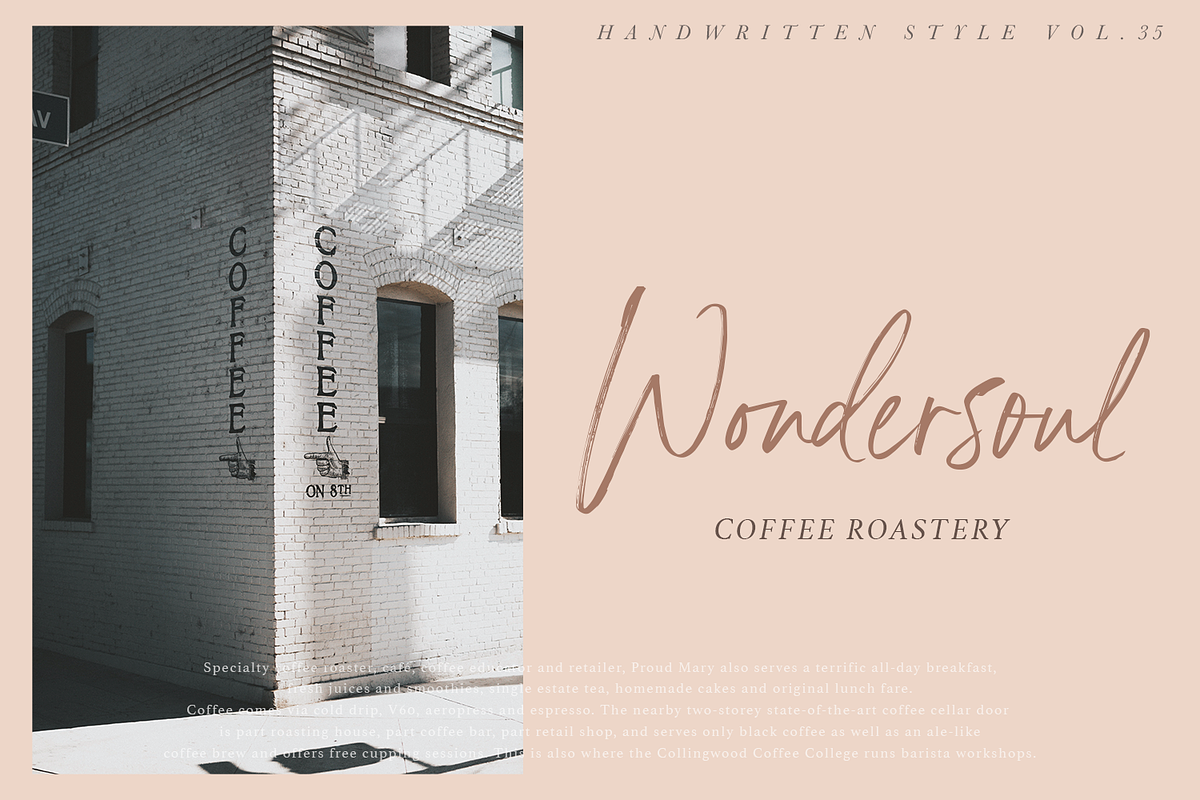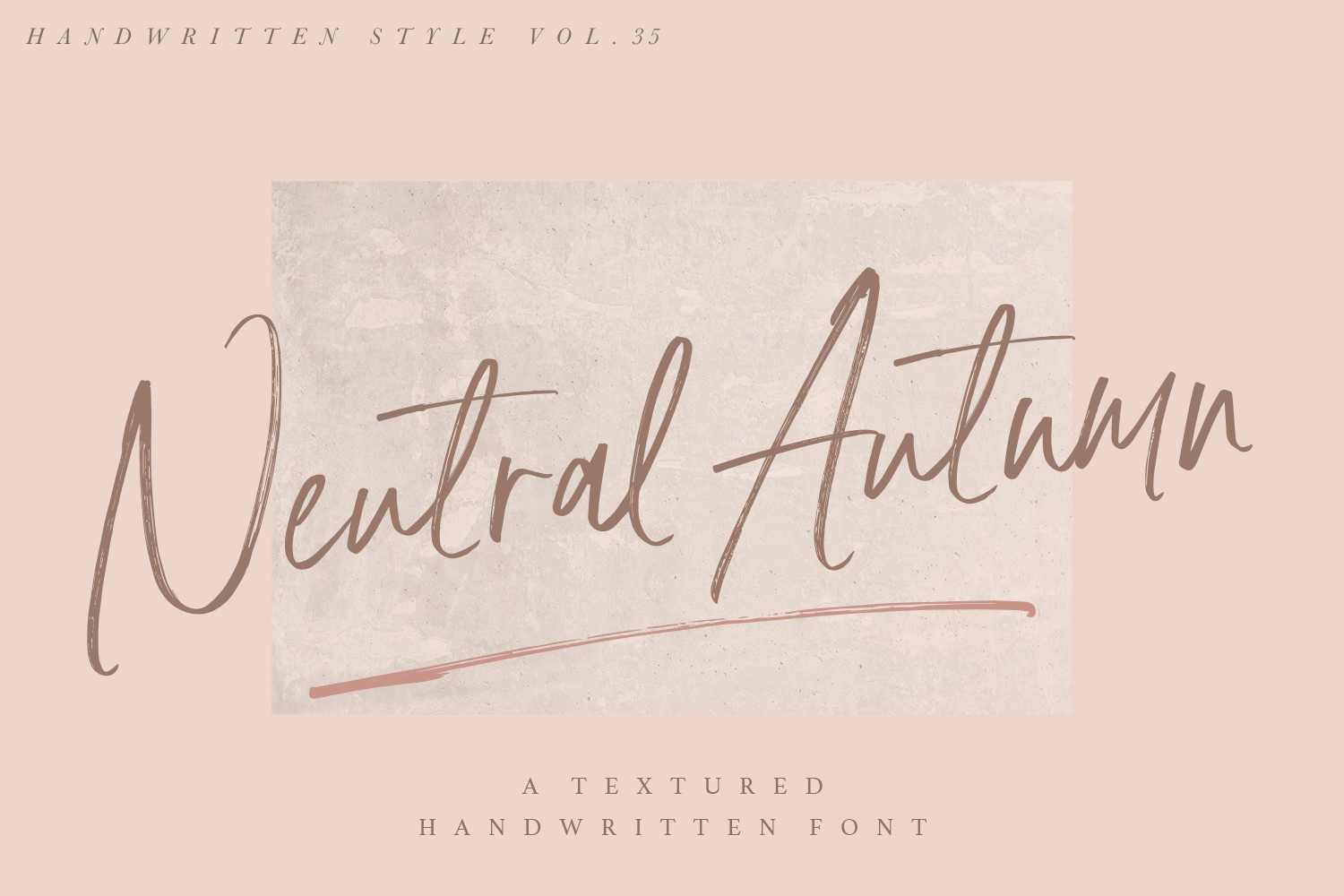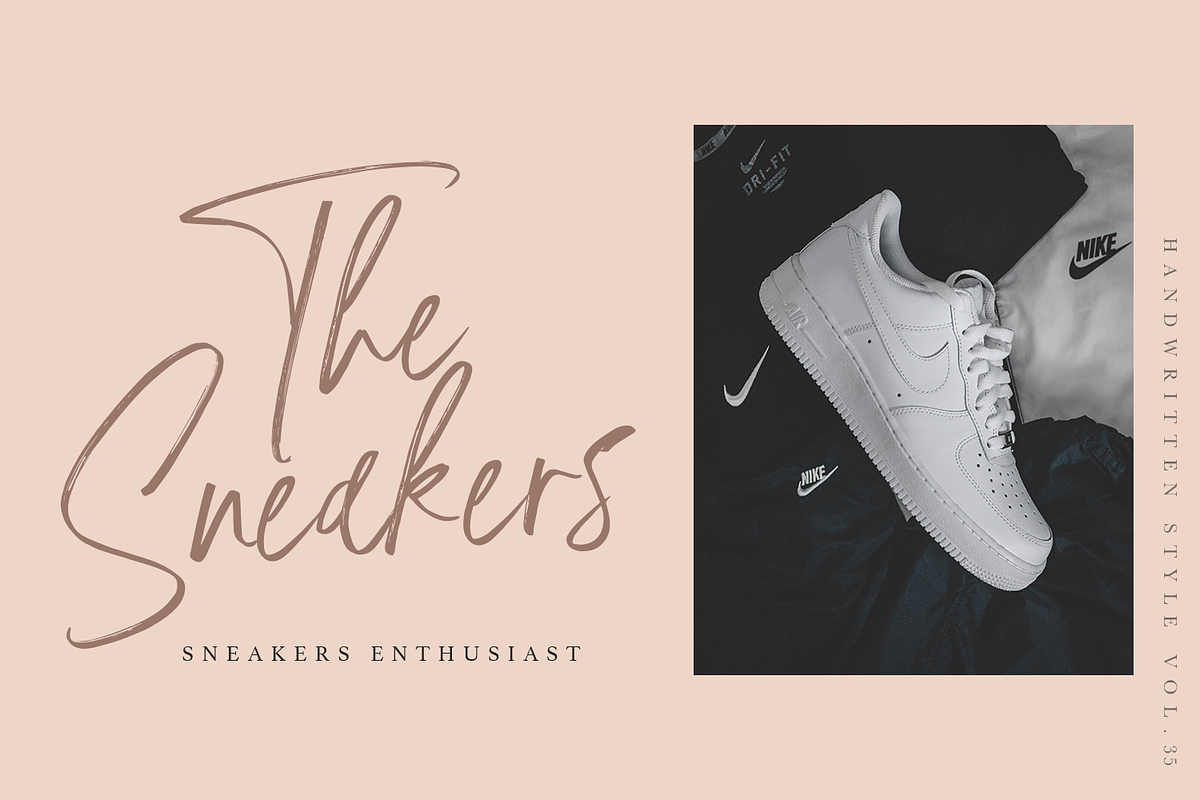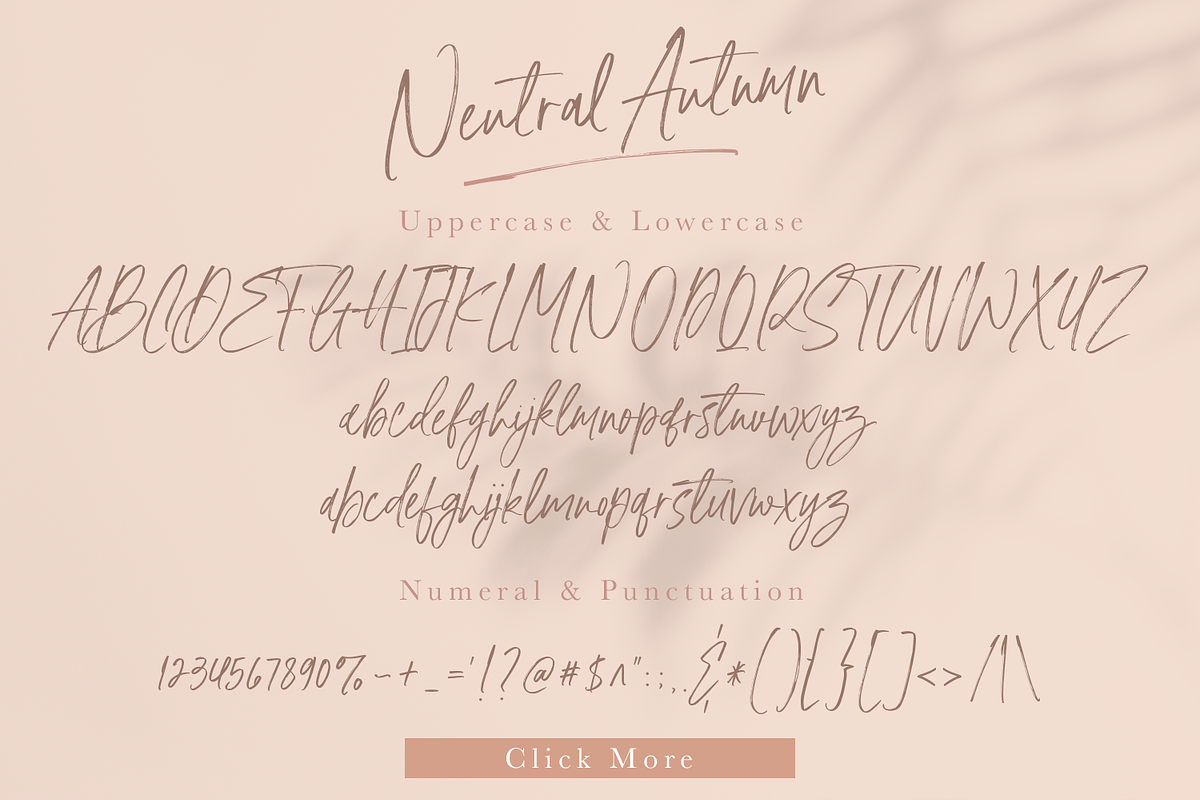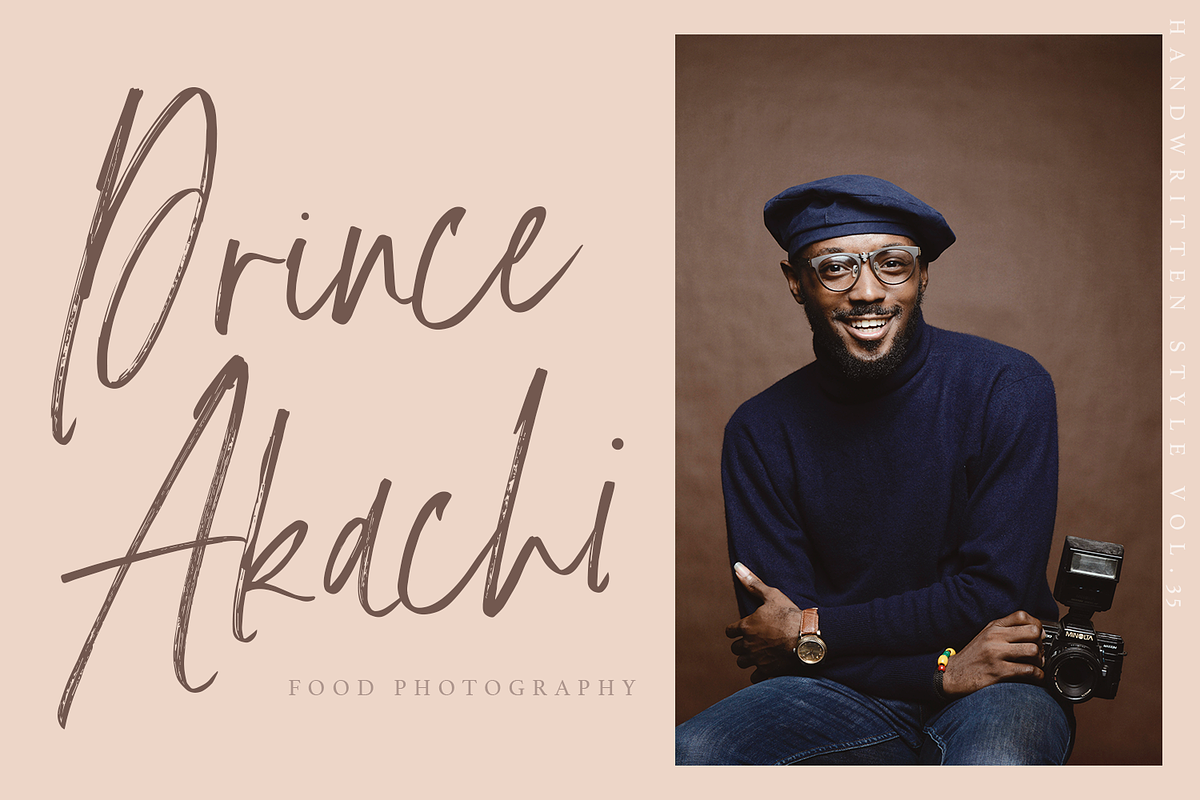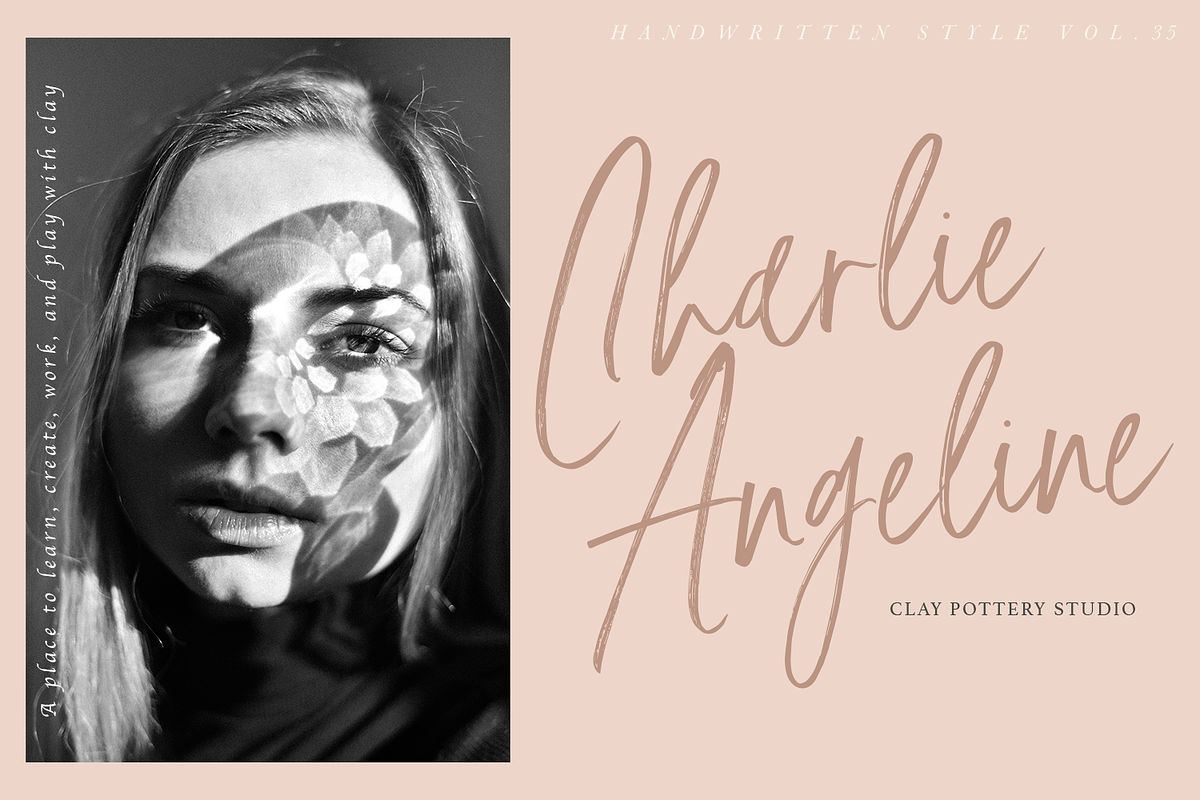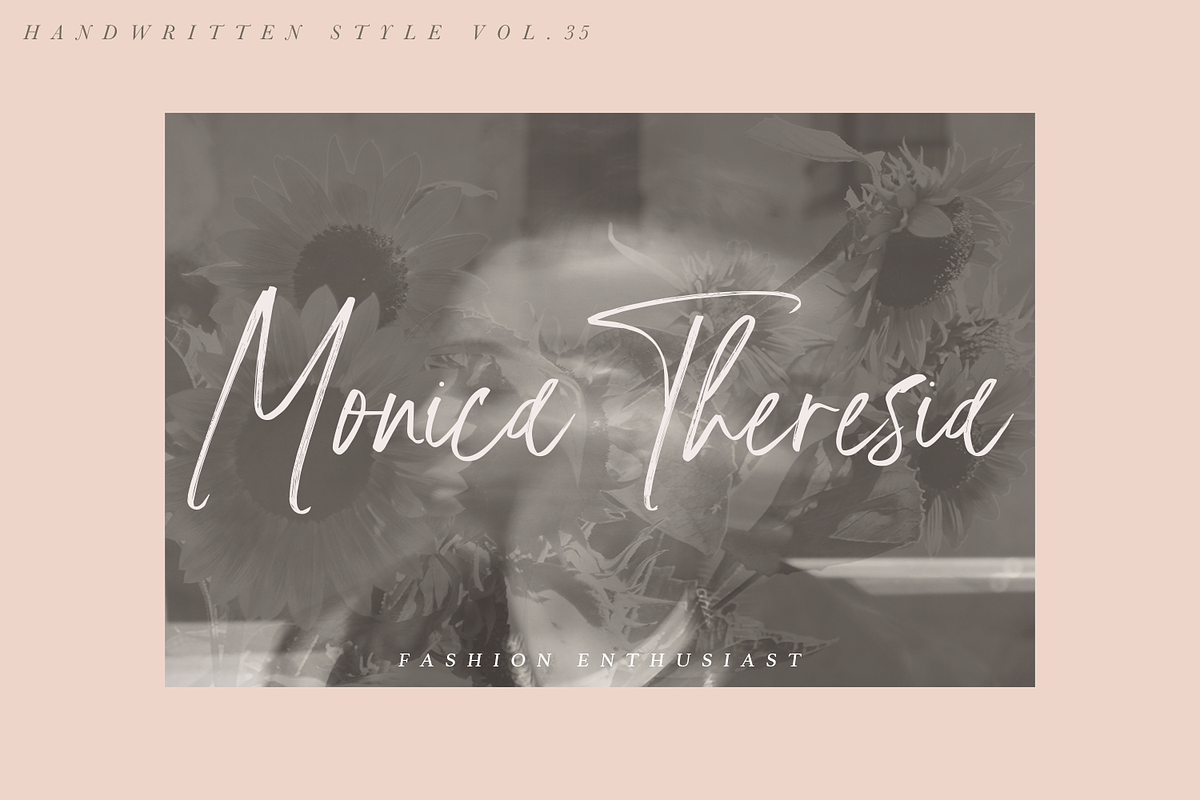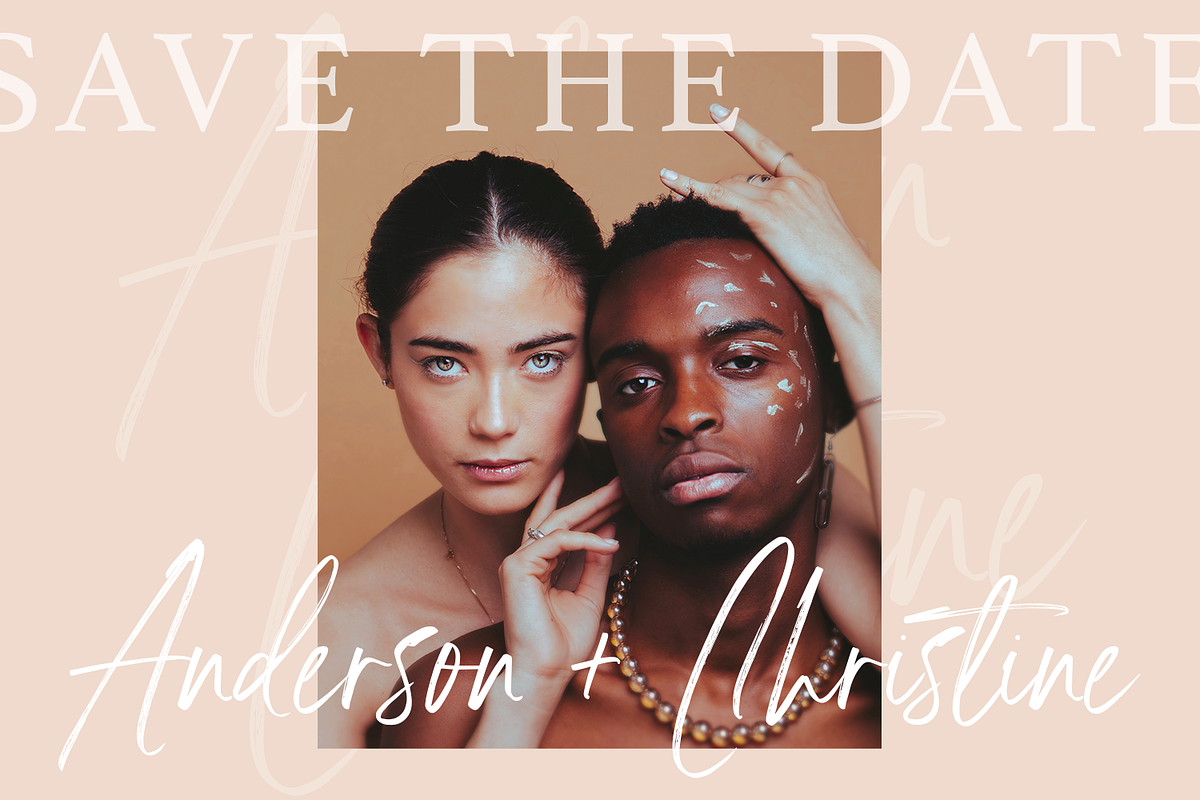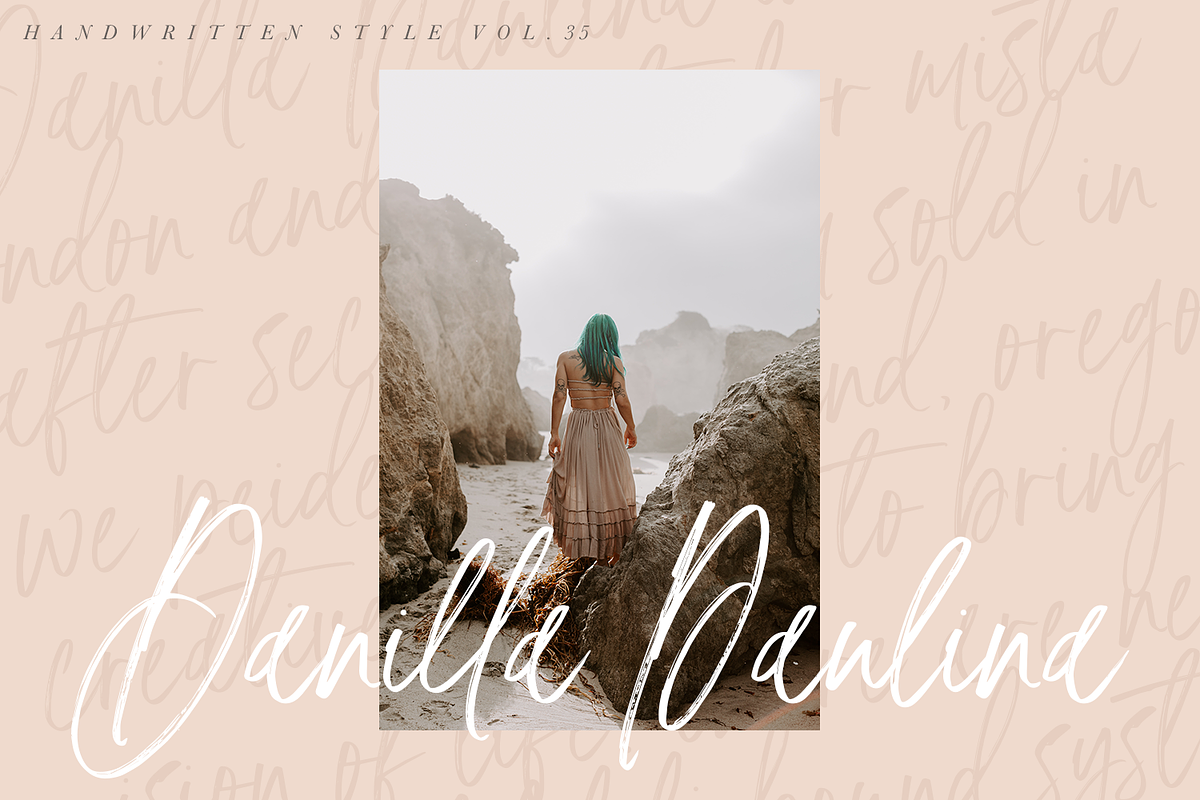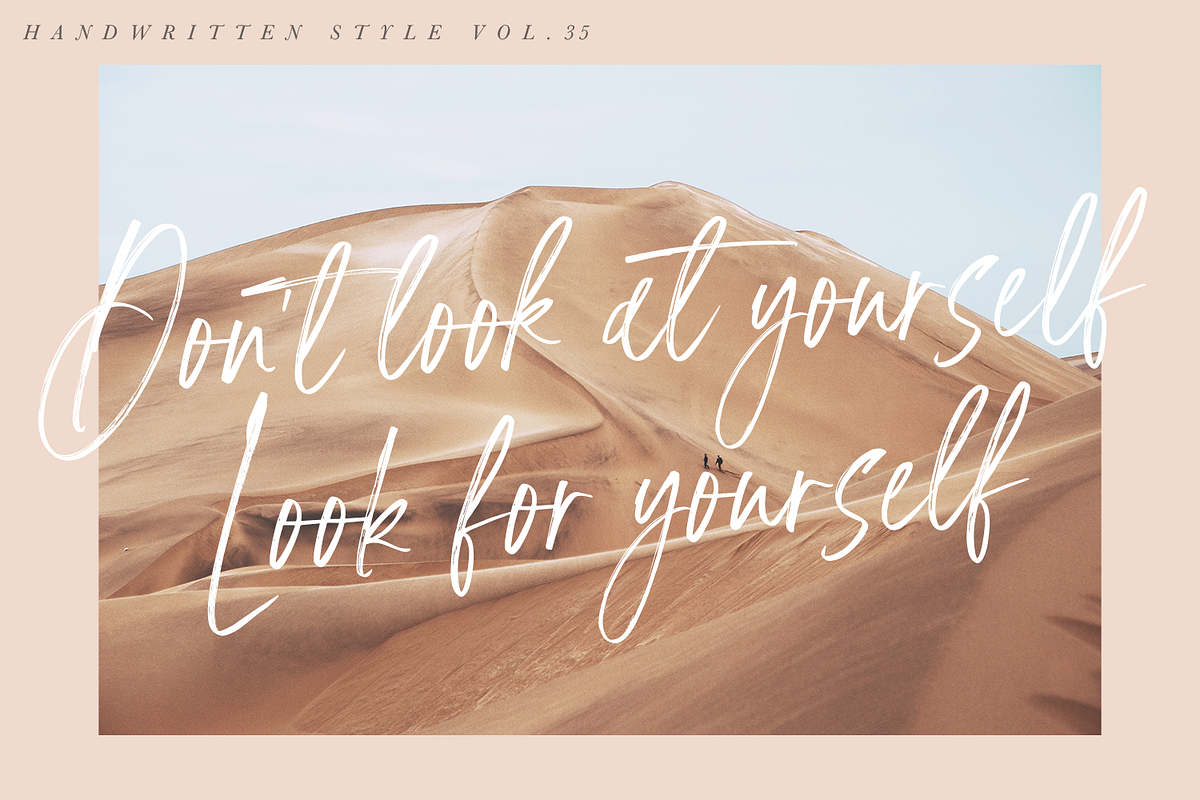
Neutral Autumn - Handwritten Font
Hi everyone, let me introduce a new Neutral Autumn - A Handwritten Font with less texture. I made Neutral Autumn on smooth paper, so that the texture that is produced is not too much. This is perfect if you don't really like texturing fonts too much.
Neutral Autumn - A Handwritten Font has a total of 2 lowercase alternatives and several ligatures to add a natural handwriting feel.
if you like to create various projects such as stationery invitations, social media, logos, weddings, branding and so on, Neutral Autumn is the right choice. It can also be combined with a variety of serif fonts to enhance any project you want to work on.